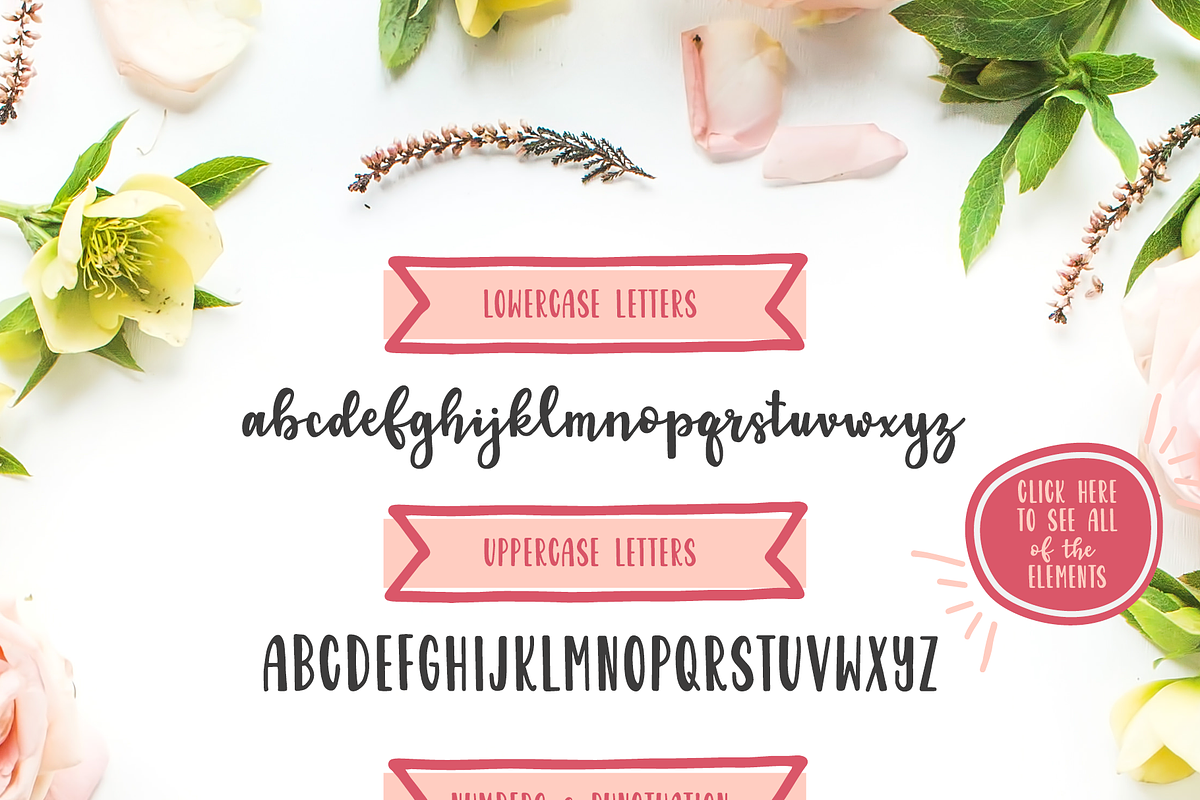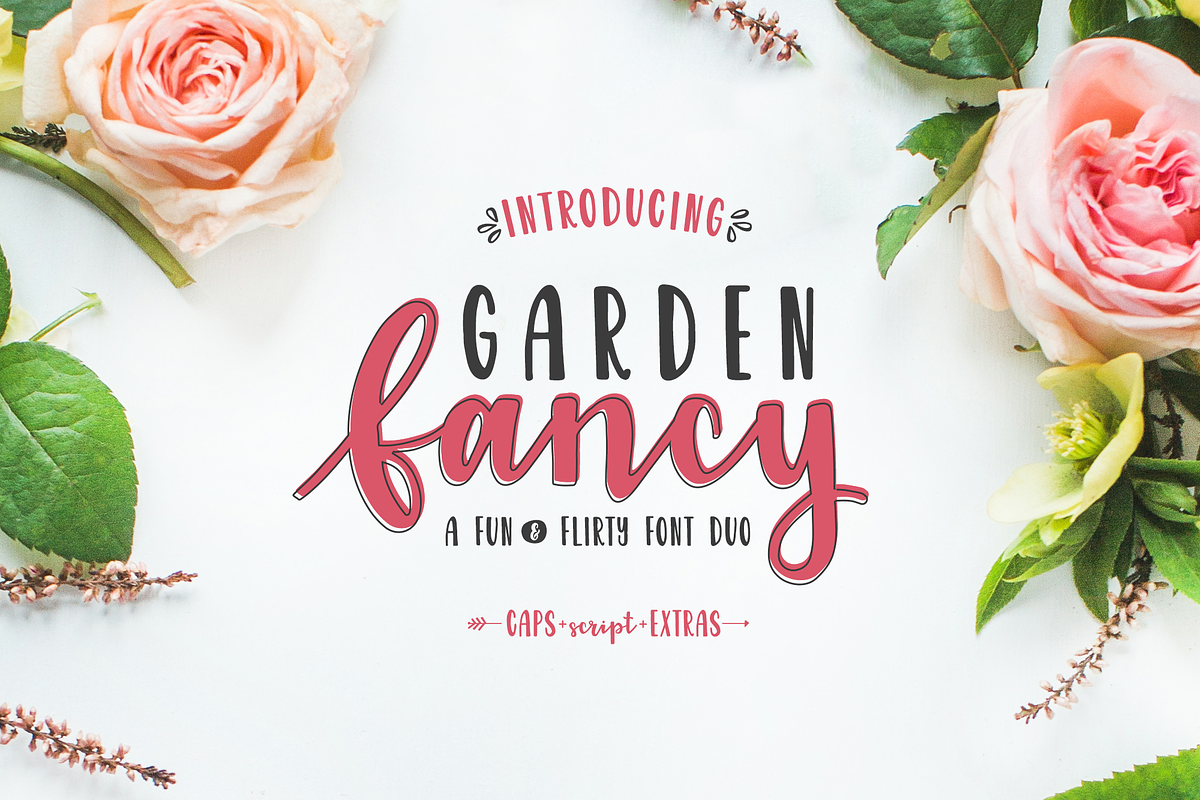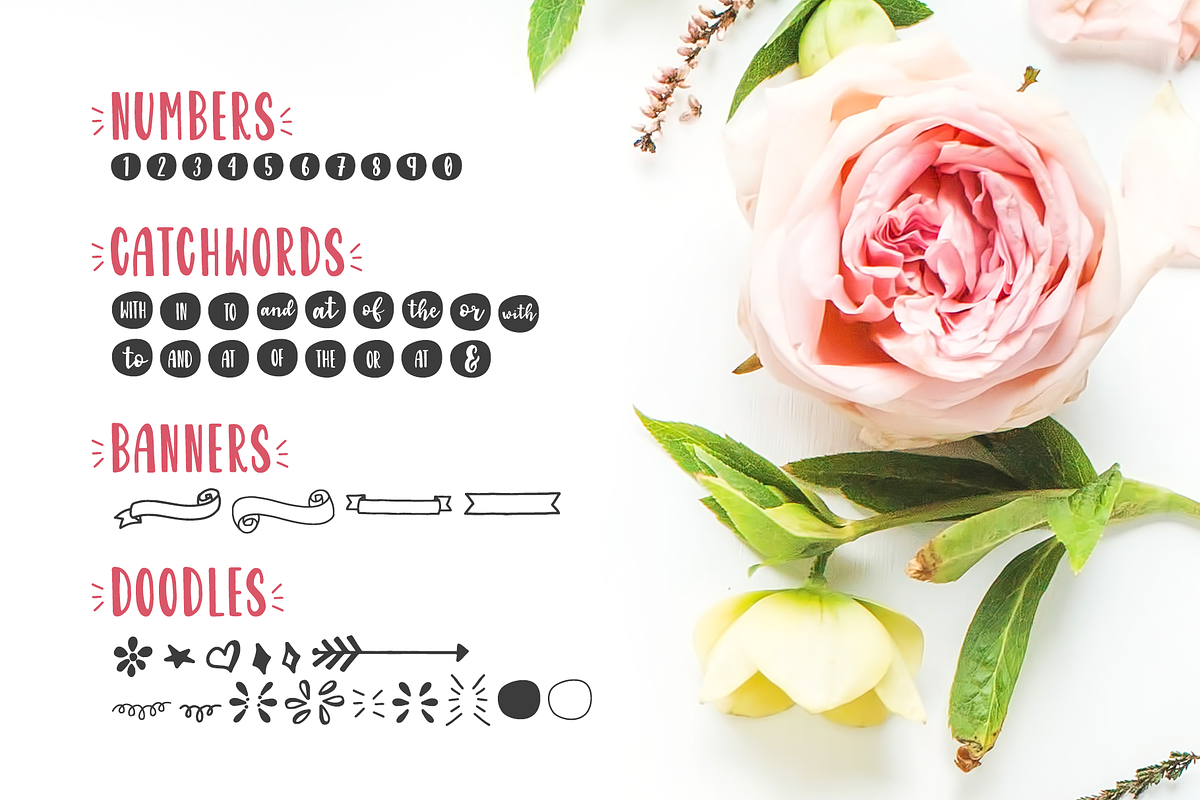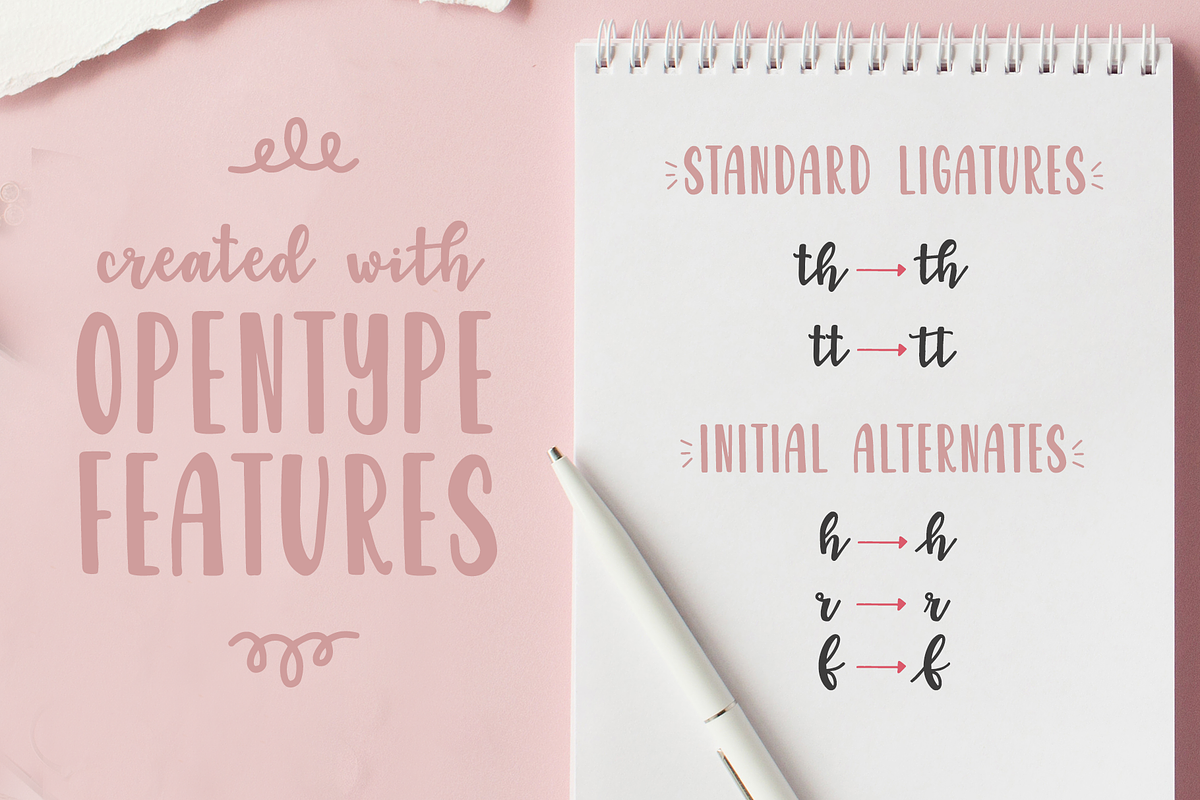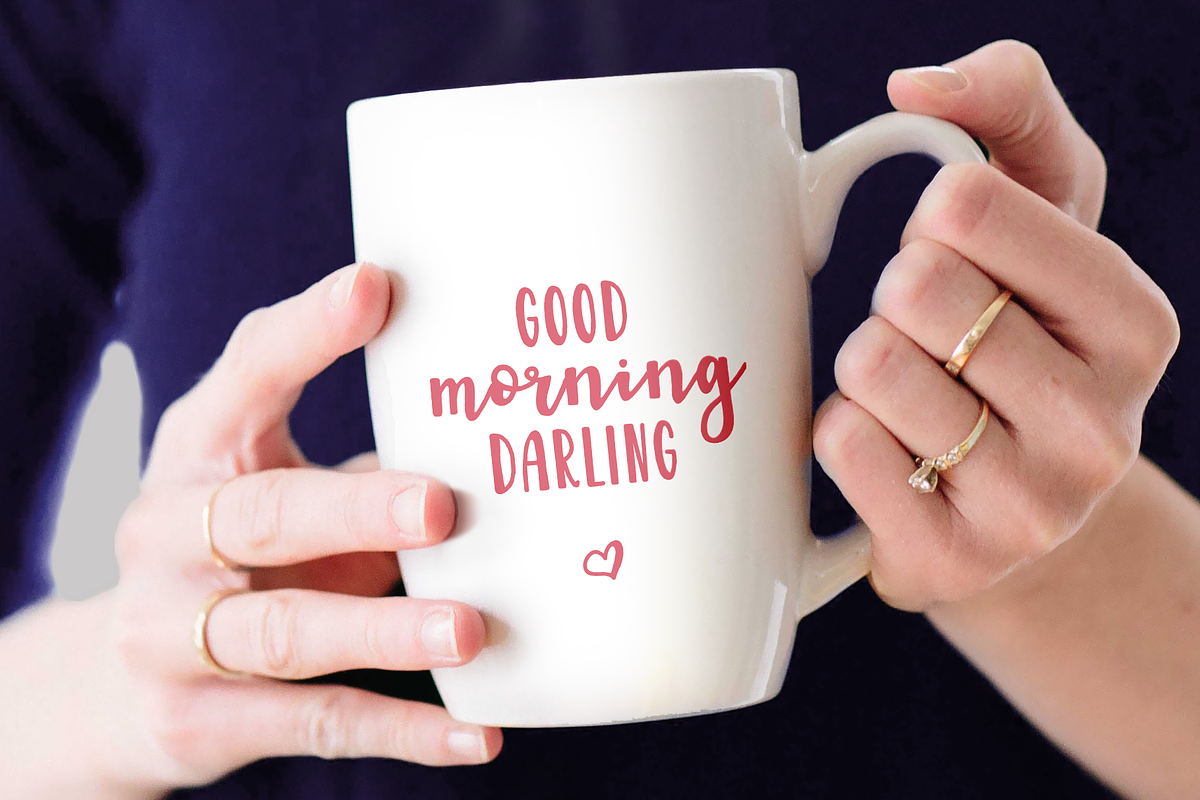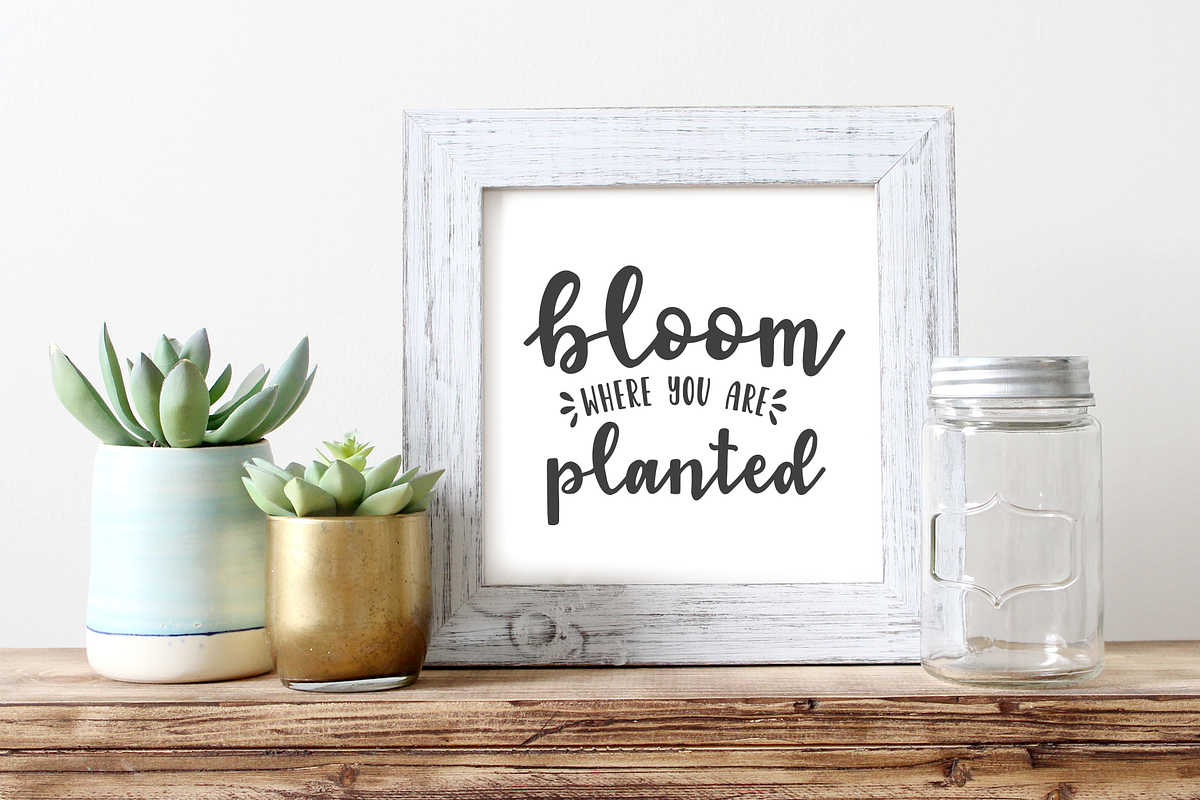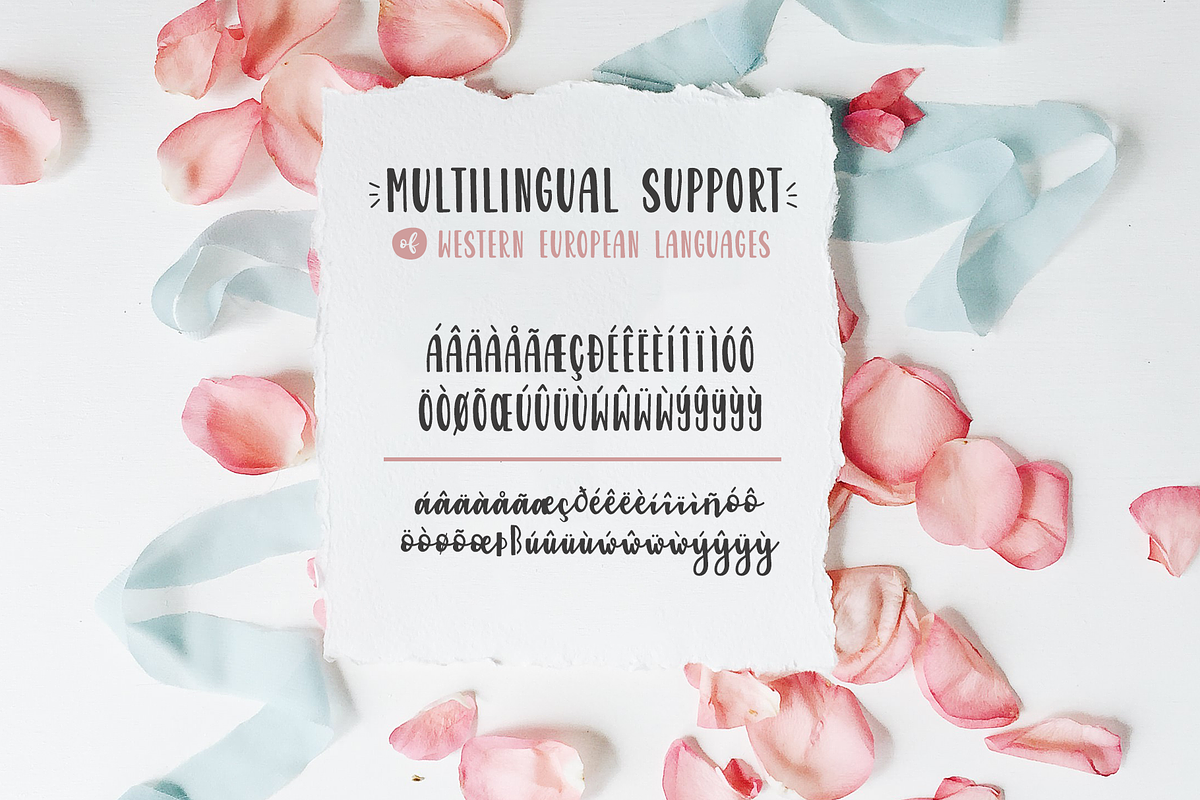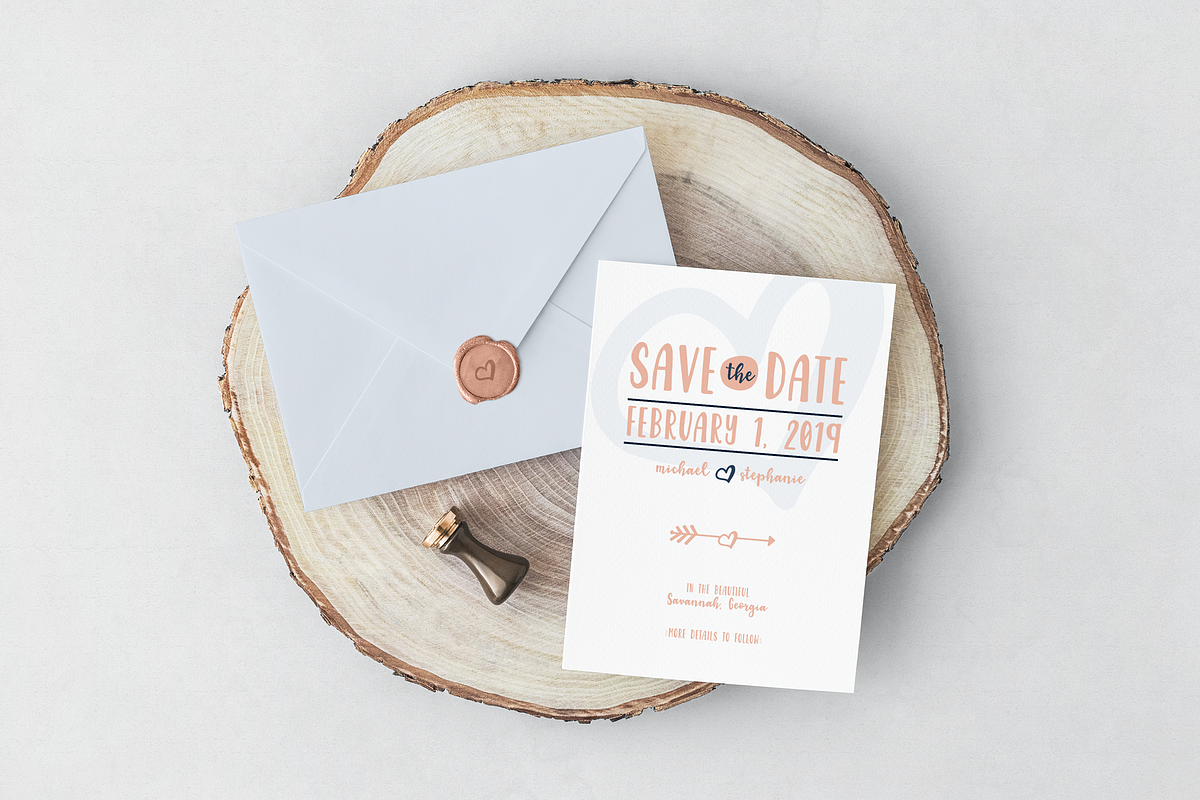
Garden Fancy Font Duo with Extras
Fancy meeting you here. Let me introduce you to Garden Fancy!
This fun and flirty font duo not only includes sans serif capital letters, but also all of the lower case letters are in script with a playful baseline. You'll also see I've thrown in some extras for ya including some adorable catchwords, banners, and doodles! Test it out below, and let me know what you think!
Garden Fancy is a hand lettered font and is perfect for all of your design work including branding and logo design, personal prints, print on demand and also all of those Cricut and Silhouette projects.
Garden Fancy has been created with multilingual support for Western European Languages in both the script and capital letters. Test out the characters below!
- Garden Fancy has been created with multilingual support for Western European Languages in both the script and capital letters.